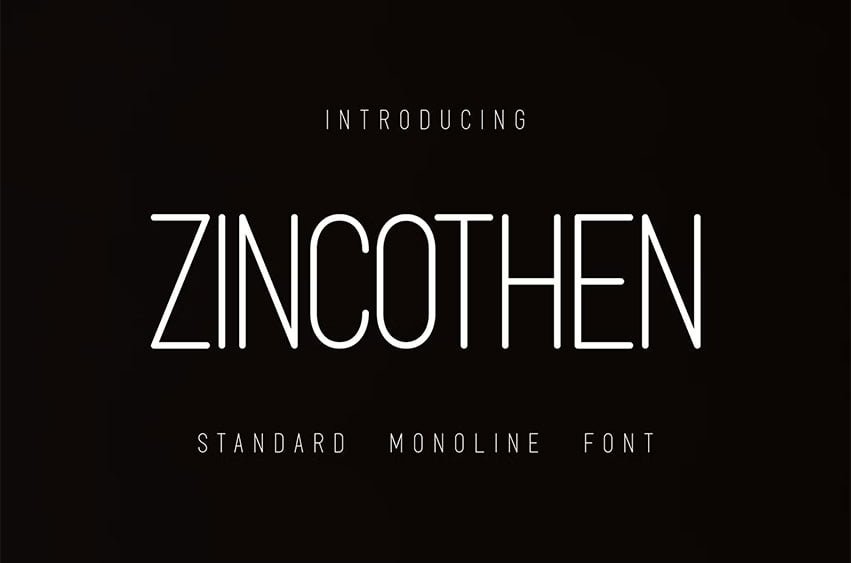
Zincothen Font
Zincothen Font is a thin font with a high length design that is suitable for describing a Logo, suitable for a Designer who is engaged in Logo contests or presents a portfolio display / or also a recap of tasks from a job.